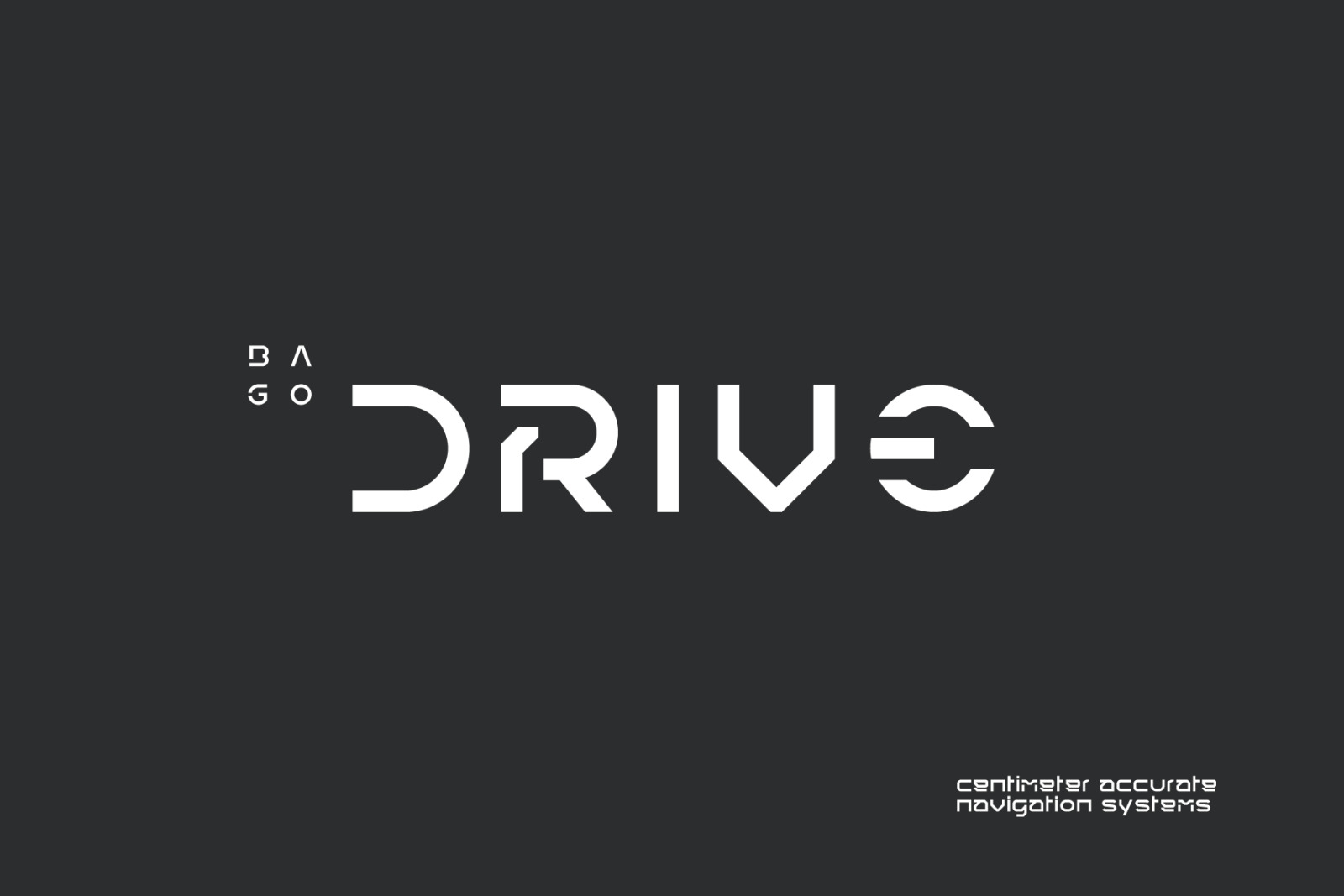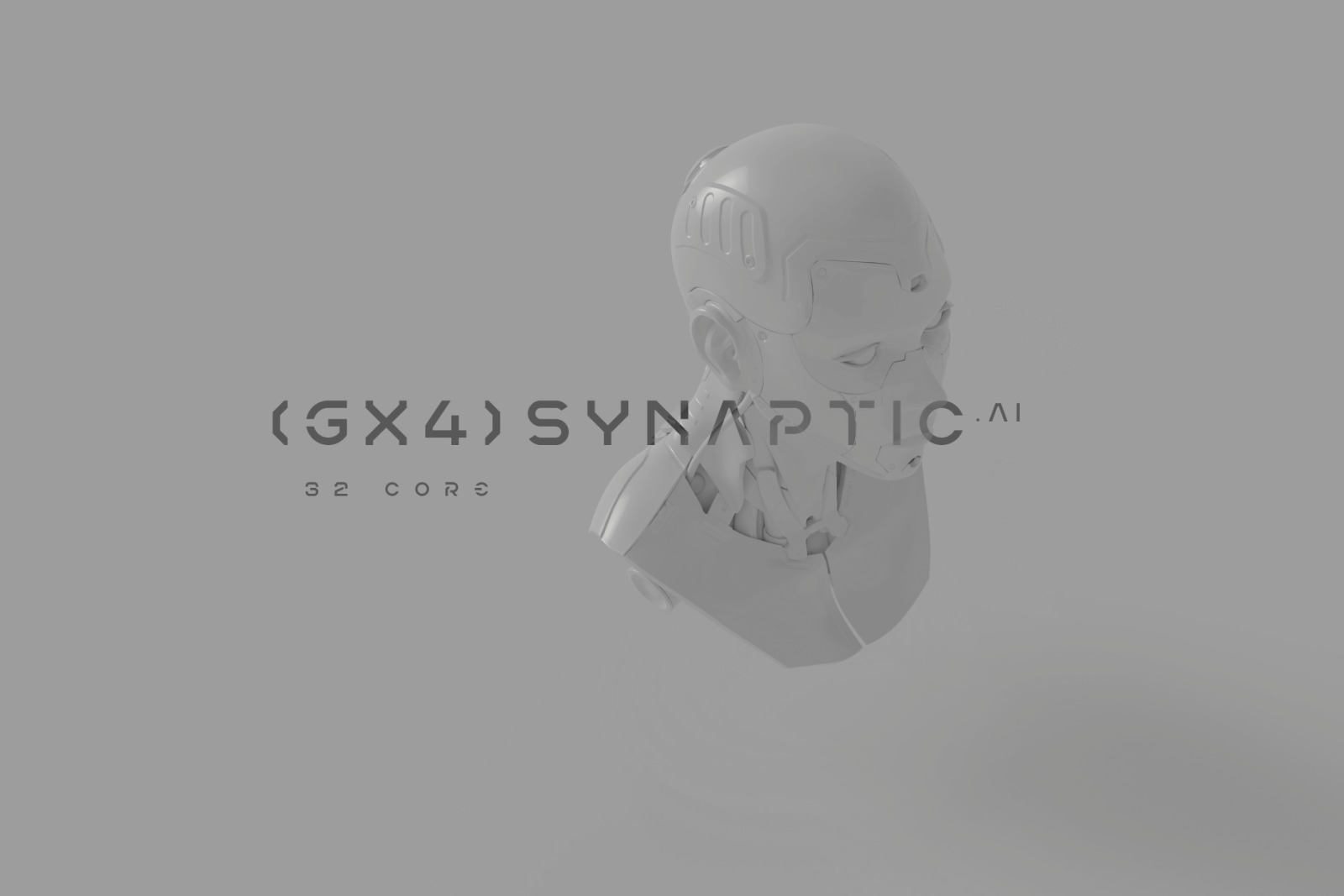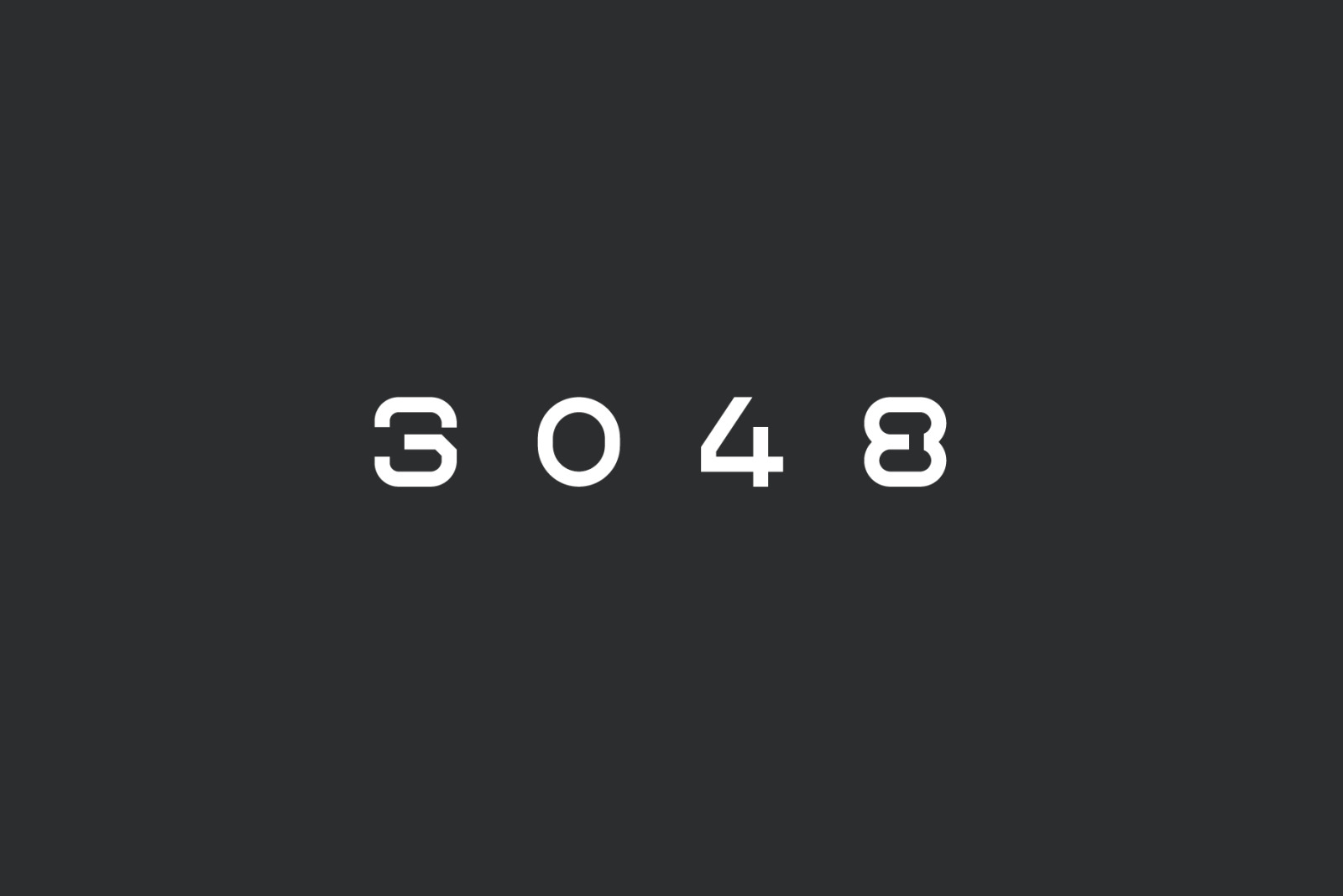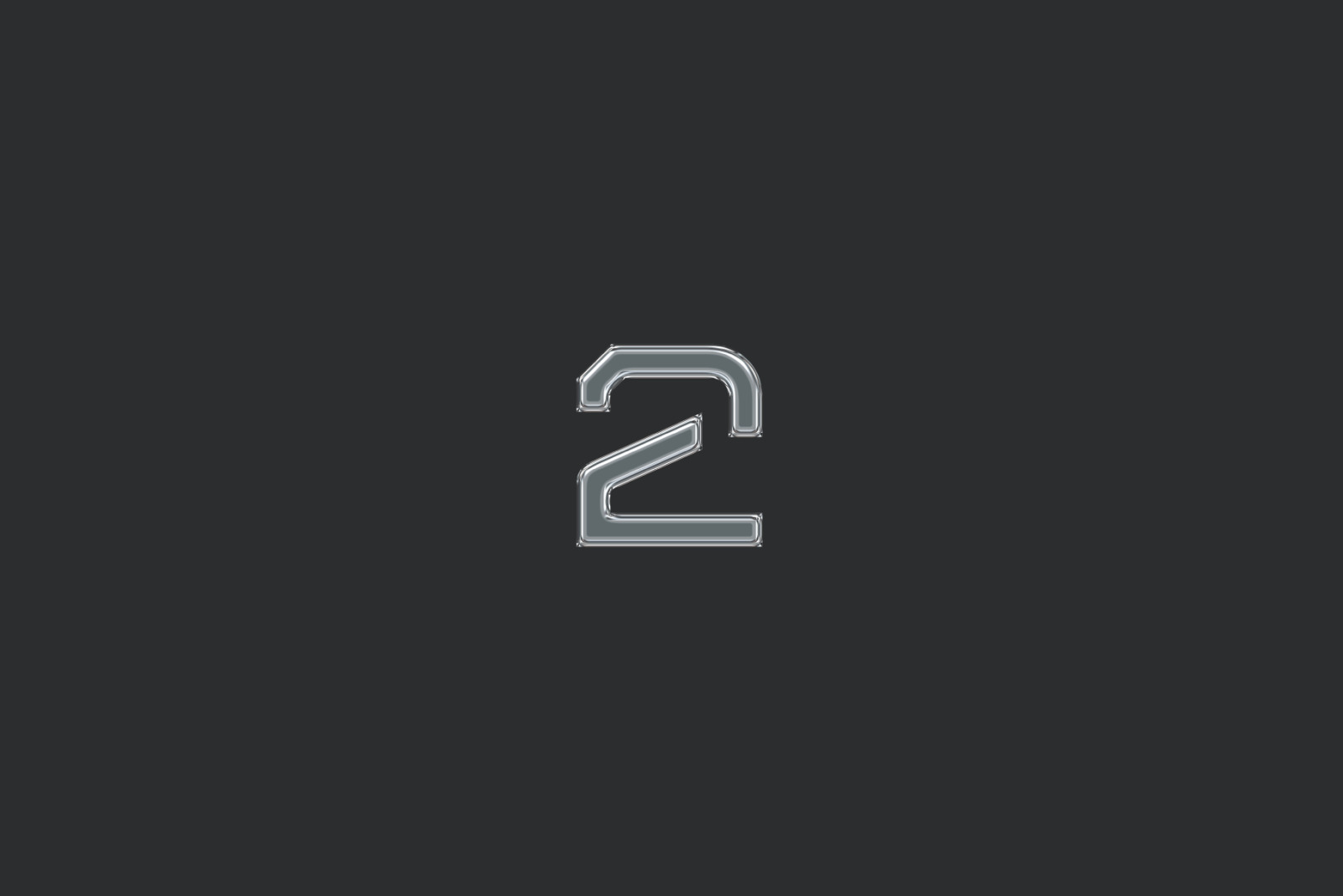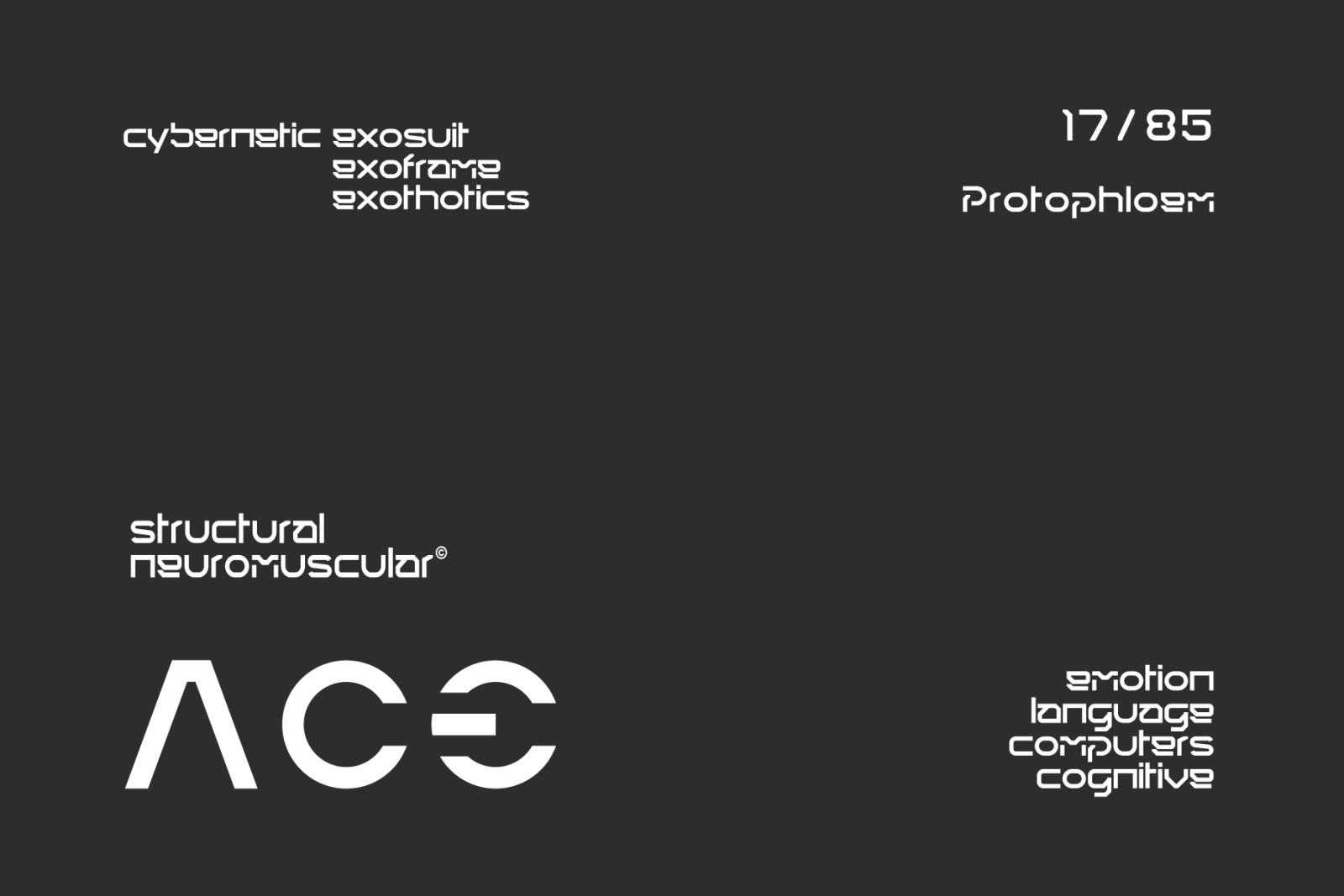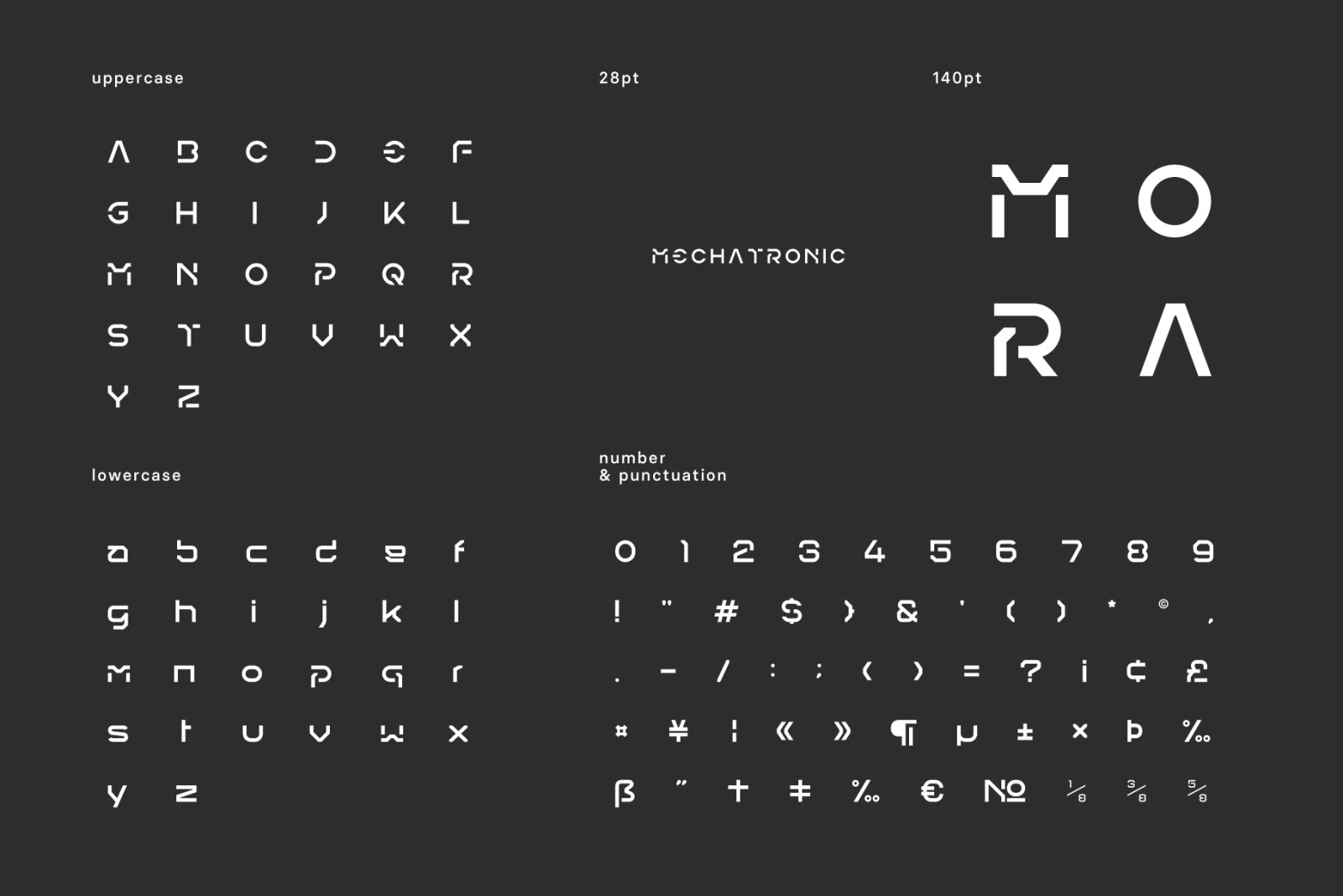
Qop Font
Qop is a disconfigure curvation tech sans apt for headline, editorial, branding, packaging, printed materials and typographic applications. 150+ glyphs with ligatures and fractions provided in opentype .otf and .woff format.